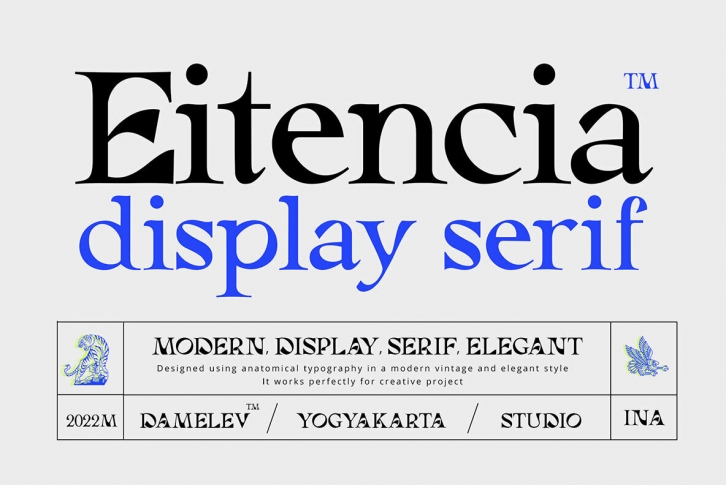
Eitencia is an elegant, modern, serif typeface that can add a refined touch to any headline. The curves are both vintage-inspired and cutting edge for its time, making this font perfect when you want your brand's message delivered in style!